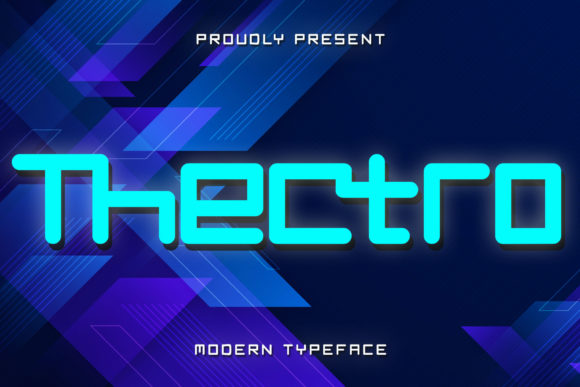
Thectro is a modern and cool looking display font. This font is ideal for writing web designs, business cards, or pretty much anything else that requires a robotic and techno touch.